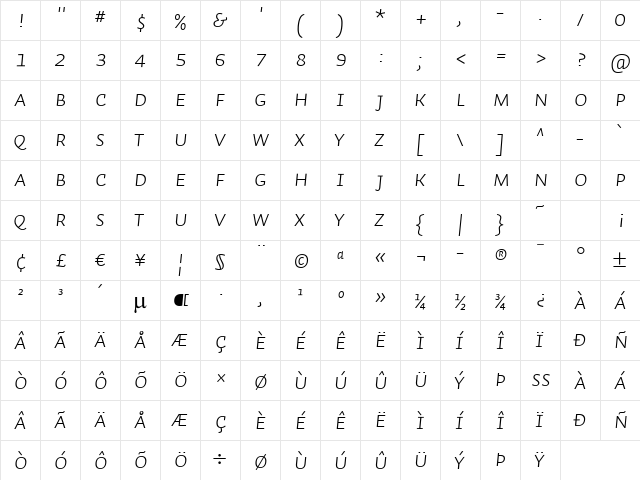
Auto 1 Light Italic SmCp
Design Context for Auto 1 Typeface
Auto 1 offers clean, dependable letterforms without strong stylistic allegiance, making it a practical choice for designers who need flexibility. The slanted form adds forward momentum and visual energy. Its slender proportions lend an understated elegance to any composition.